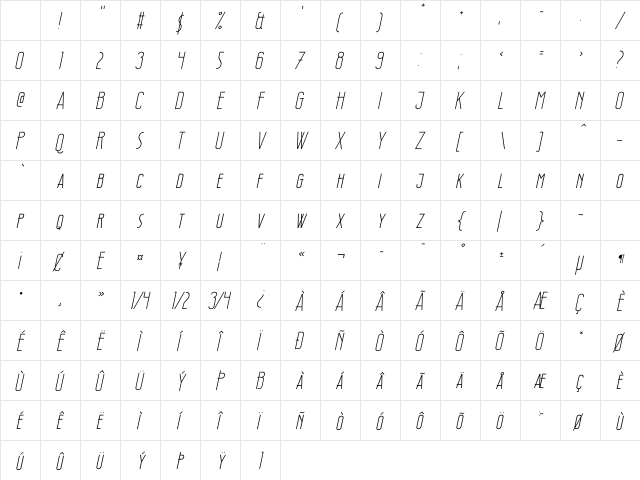
Complete Wellcome Paradise Italic glyph index. Displaying only characters natively supported by Wellcome Paradise Italic font.
Wellcome Paradise is a composed and adaptable typeface that performs quietly and consistently across a wide range of design contexts. The slanted form adds forward momentum and visual energy.